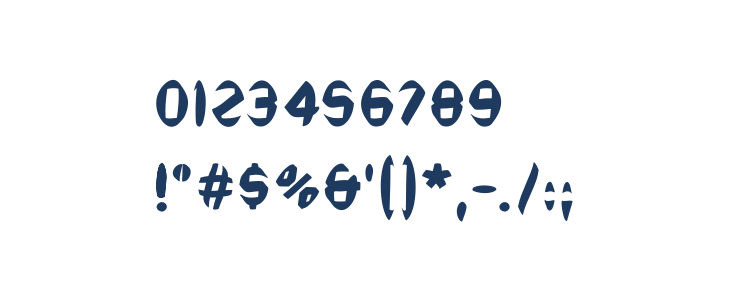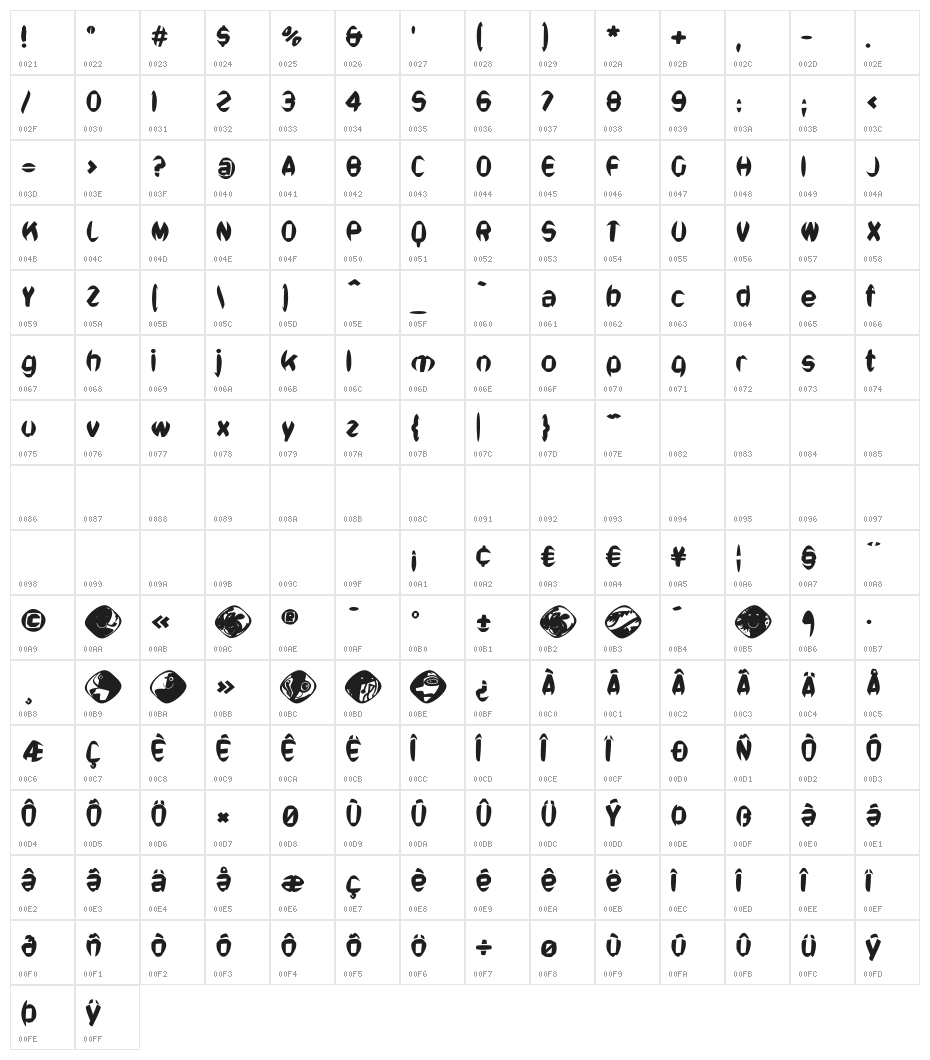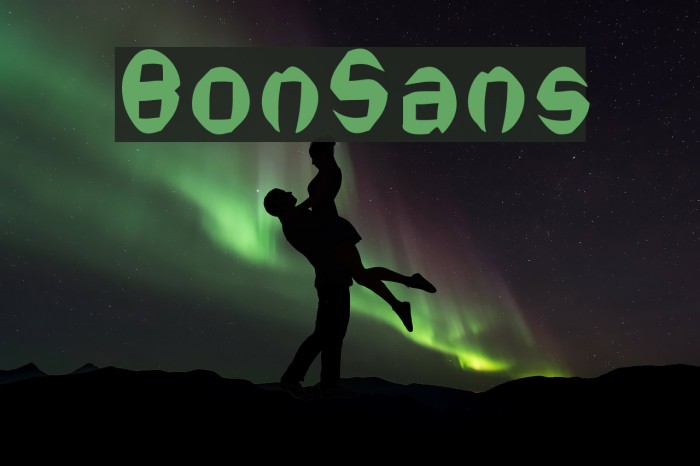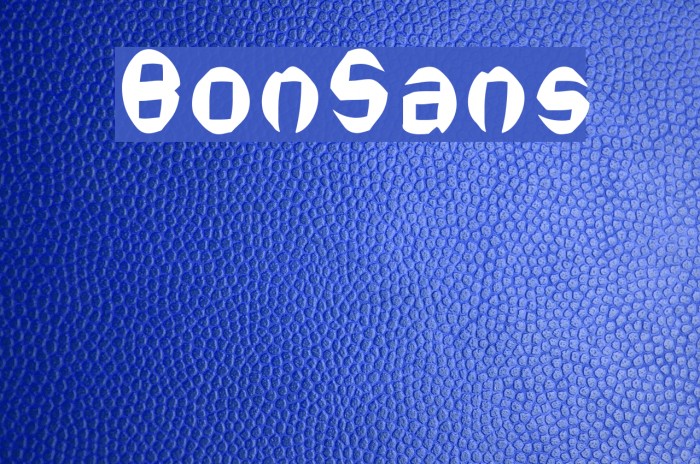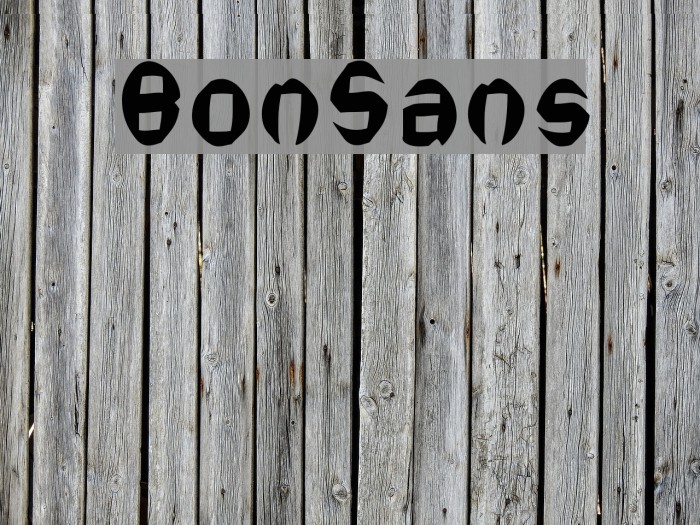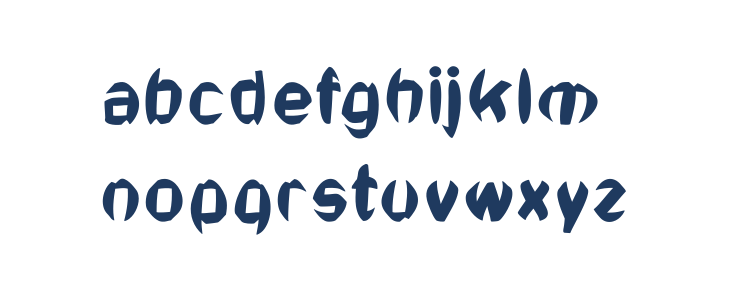
BonSans Font
BonSans Description
This font features a bold and dynamic design with a strong visual impact. The characters are crafted with thick, rounded strokes that convey a sense of movement and energy. Each letter has a unique, slightly abstract form, giving the typeface a playful and artistic feel. The uppercase and lowercase letters maintain a consistent style, while the numerals and special characters integrate seamlessly into the overall design. The font's boldness and distinctiveness make it ideal for projects that require a standout visual element.